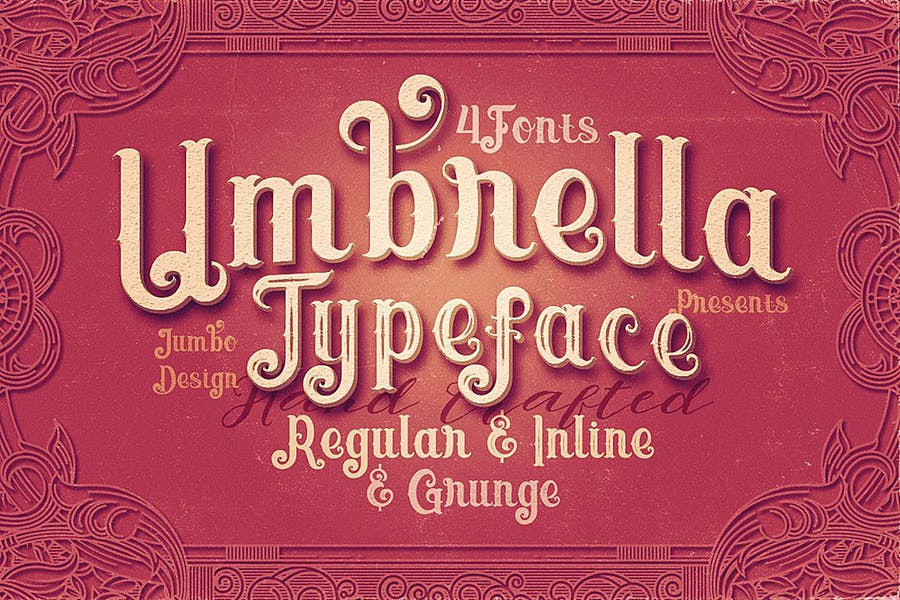
Umbrella - 4 Display Fonts
Umbrella - 4 Display Fonts is perfect for weather service branding, protective equipment logos, insurance company signage, safety campaign materials, outdoor gear packaging, storm preparedness graphics, shelter organization identity, security service promotions, protective clothing brands, weather app interfaces, emergency response communications, and reliable storytelling applications.
Umbrella - 4 Display Fonts is exciting because it embodies protection and reliable coverage with four distinct display variations that work together like a comprehensive safety system, creating versatile typographic solutions that communicate security, dependability, and the reassuring presence of reliable protection in life's unpredictable moments.
The Umbrella - 4 Display Fonts family includes protective variations: Regular, Bold, Light, and Heavy styles, providing designers with a complete protective typography system to create trustworthy compositions that celebrate reliability, safety, and the peace of mind that comes from dependable coverage.
The font collection's strategically crafted letterforms reflect the solid dependability and comprehensive coverage that define reliable protection services, with strong architectural foundations and clear proportions that suggest safety, security, and the unwavering commitment to providing shelter from life's storms.
Umbrella - 4 Display Fonts excels in creating trustworthy brand experiences for businesses in insurance, security, and protective services sectors. Its reliable presence transforms ordinary communications into reassuring promises that resonate with audiences seeking dependable protection and peace of mind in an uncertain world.
Professional designers appreciate how Umbrella - 4 Display Fonts maintains protective character while providing exceptional versatility across diverse security applications. The four distinct weights ensure optimal performance from intimate personal insurance materials to massive emergency preparedness campaigns, maintaining consistent reliability and protective credibility.
This remarkable font collection brings instant trust to protective ventures and security-focused businesses. From insurance agencies to emergency services, Umbrella - 4 Display Fonts creates lasting impressions that communicate dependability, comprehensive coverage, and the essential peace of mind that comes from reliable protection.